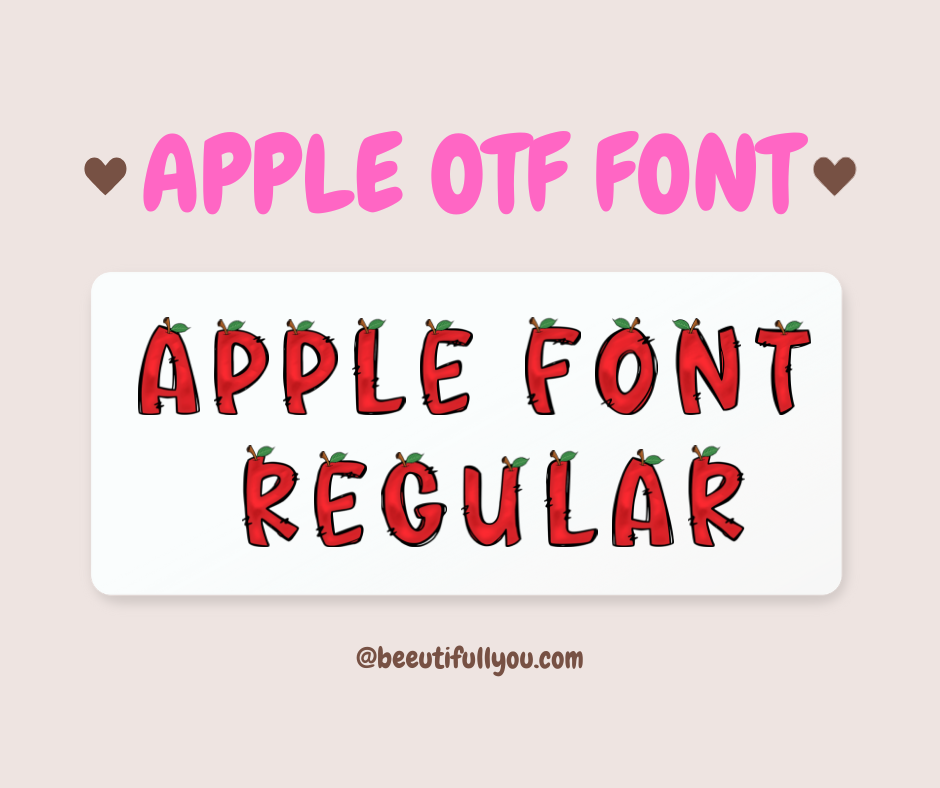
Apple OTF Font – Apple Font Regular
A juicy and fun font perfect for all your back-to-school, teacher, or fall-themed projects! Each letter is shaped like a crisp red apple with a tiny leaf and stem—playful, bold, and eye-catching.